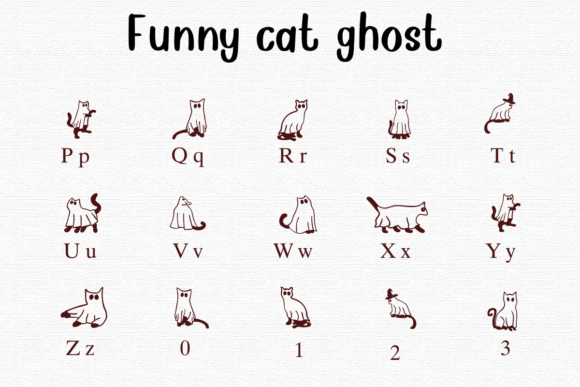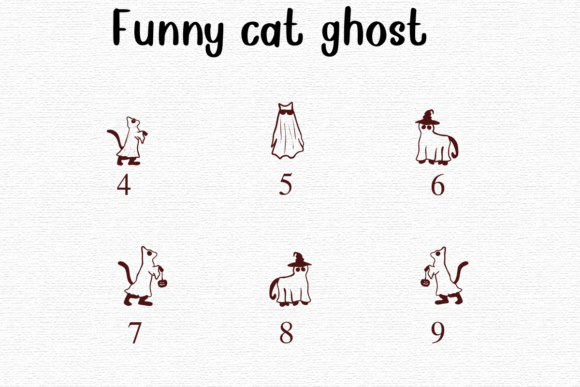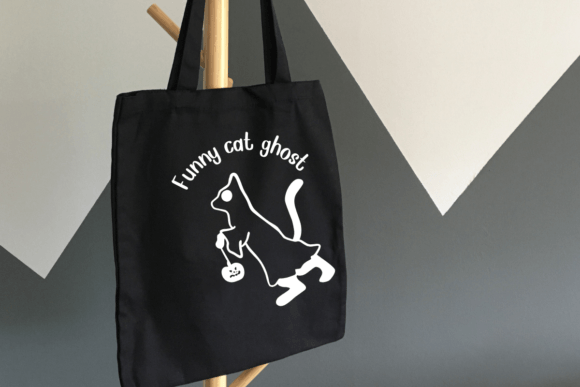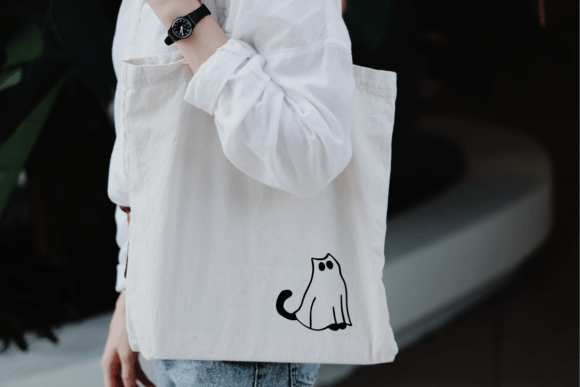
Funny Cat Ghost Font
Funny Cat Ghost is a playful font featuring adorable cats dressed up as ghosts. Each character in the font looks like a cute cat in a ghost costume, perfect for adding a fun and spooky touch to your projects.